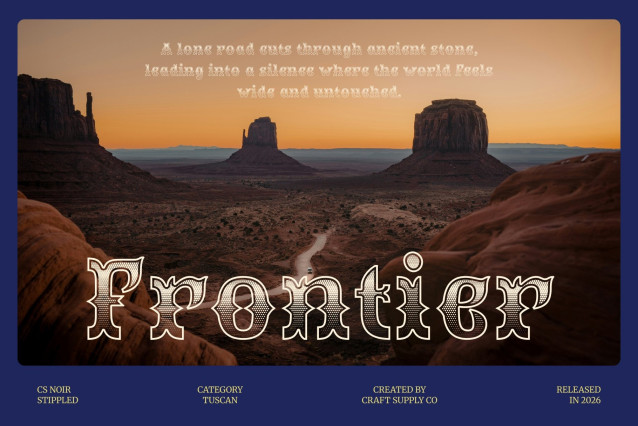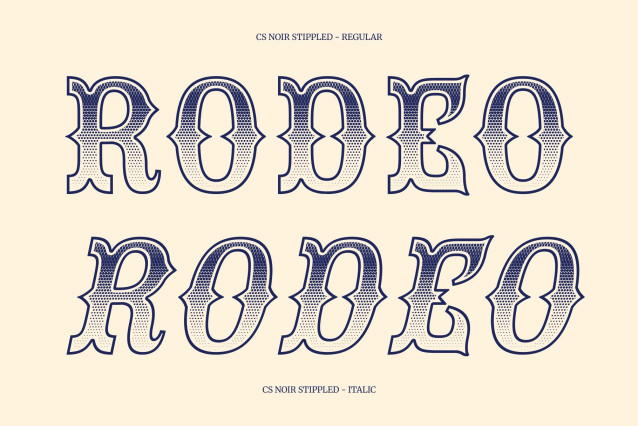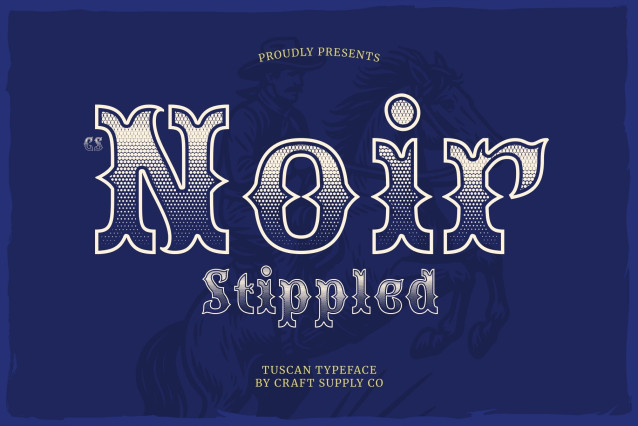
CS Noir Stippled Font
CS Noir Stippled – Elegant Tuscan Display Font
Vintage Elegance with a Bold Statement
This is a refined Tuscan display serif font featuring bifurcated serifs, strong contrast, and graceful curves. Inspired by 19th-century typography, it brings historical charm into modern design with a textured stippled finish that adds depth and handcrafted character.
Dramatic and Eye-Catching Appeal
High-contrast strokes and ornate letterforms give this font a commanding visual presence. The stippled texture enhances its decorative serifs and elegant curves, creating a sense of grandeur that feels both classic and artistic perfect for designs that need to stand out with sophistication.
Versatile for Retro and Luxury Designs
Rooted in Tuscan tradition, this font shines across signage, branding, editorial layouts, and premium packaging. It works beautifully for luxury logos, fashion campaigns, theatrical posters, and heritage-inspired visuals that require a bold yet refined typographic voice.